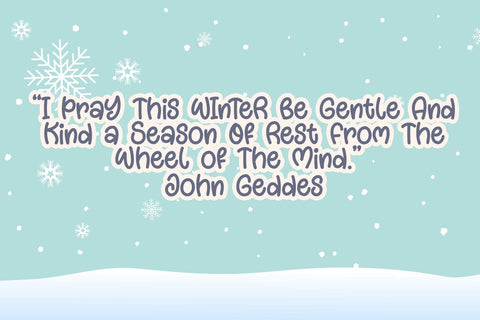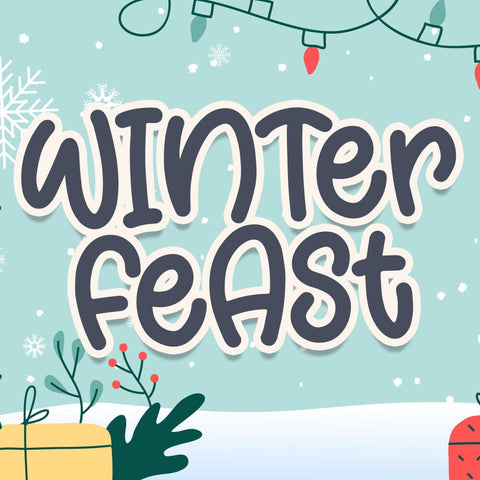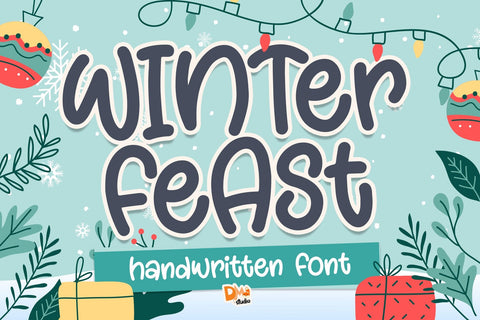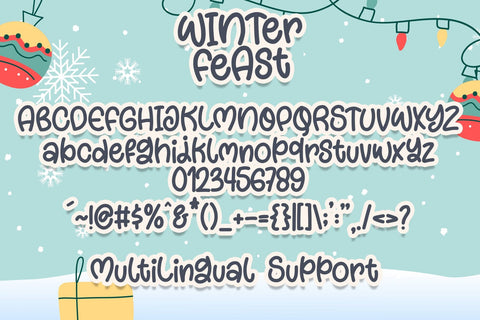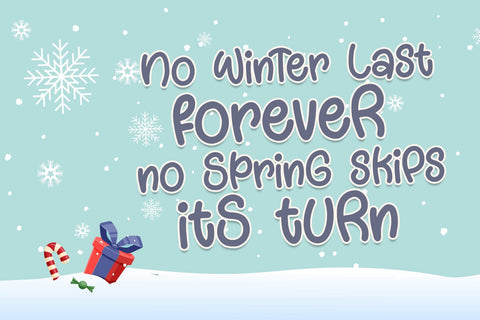
Winter Feast Font
Winter Feast Font is a festive and versatile typeface that brings the warmth and joy of the winter season to your designs. Perfect for holiday cards, invitations, and seasonal branding, this font combines elegance with a touch of whimsy, capturing the spirit of winter celebrations.
- Winter-inspired Design: The font features unique elements inspired by the winter season, with snowflakes and festive accents that add a delightful touch to your text.
- Versatile Usage: Ideal for a wide range of design projects, including holiday cards, invitations, social media graphics, and seasonal branding, the Winter Feast Font adds a festive atmosphere to your creations.
Usage:
- Holiday Cards and Invitations: Create heartwarming holiday cards and invitations that reflect the festive spirit of winter celebrations.
- Social Media Graphics: Design eye-catching graphics for your social media platforms to spread holiday cheer and engage your audience.
- Seasonal Branding: Enhance your brand's identity during the winter season by incorporating the Winter Feast Font into your logo, marketing materials, and promotional content.
- Crafting and DIY Projects: Use the font for crafting projects such as labels, tags, and personalized gifts to add a special touch to your creations.
Celebrate the winter season with the enchanting and festive vibes of the Winter Feast Font. Let the unique design elements and versatility of this font bring a touch of joy and elegance to your holiday designs.